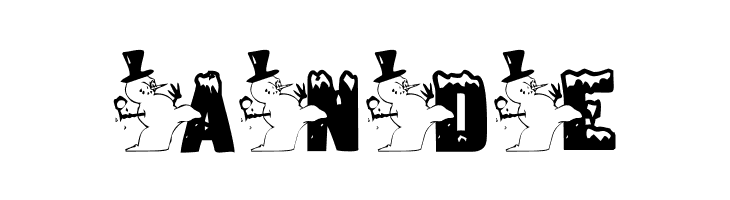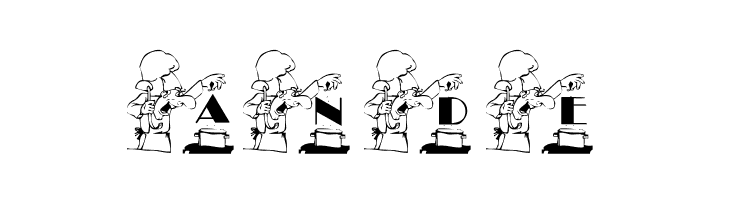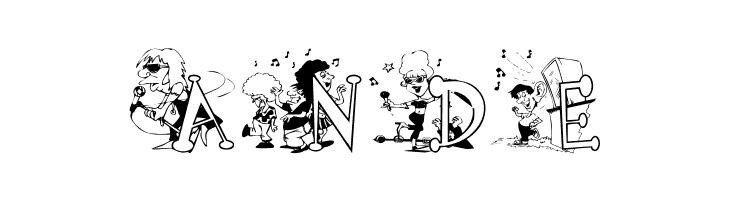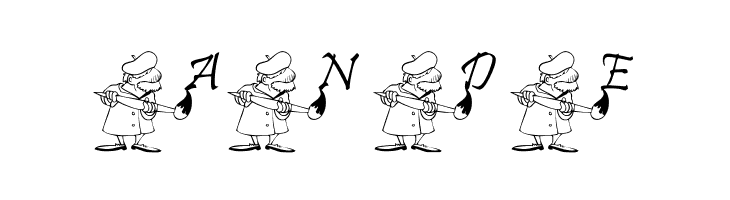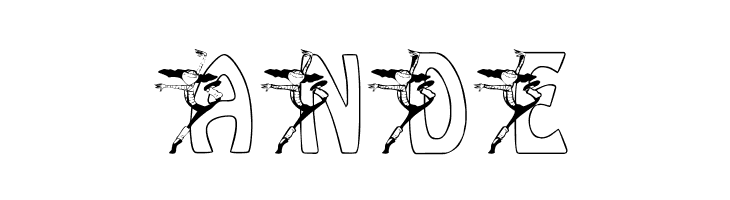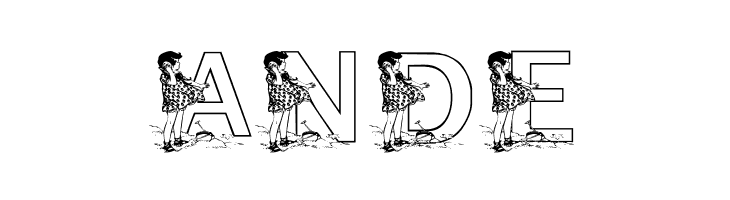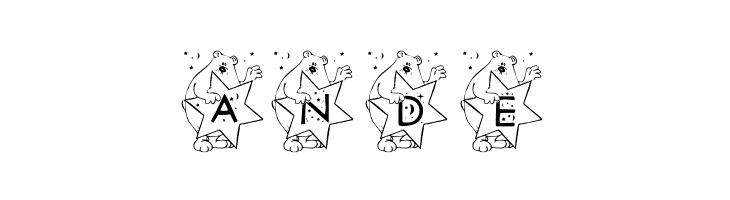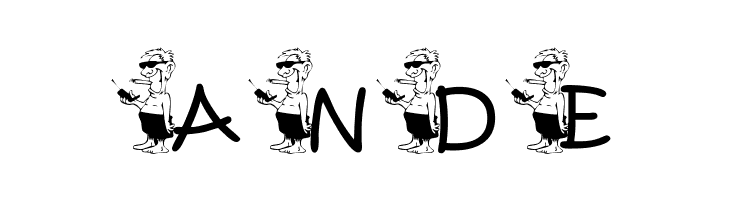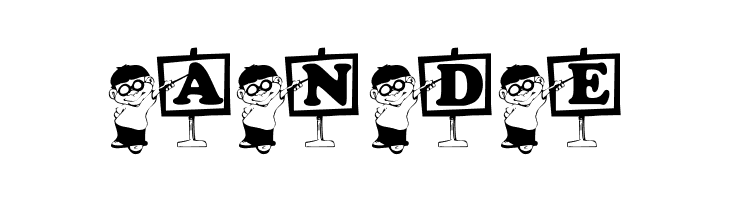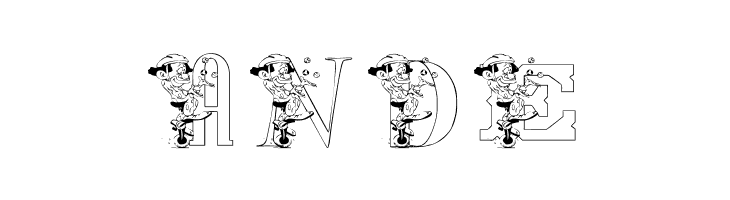
A whimsical, cow-themed decorative font with bold, outlined characters.
A whimsical, illustrated font inspired by nursery rhymes, perfect for decorative uses.
A decorative font with NYC-themed illustrations integrated into each letter.
A whimsical font with owl-decorated uppercase letters and clean lowercase outlines.
A whimsical font with letters inside teddy bear designs, perfect for playful projects.
A playful, hand-drawn font with letters in doodled squares and pencil accents.
A playful font with each letter paired with a dog illustration, perfect for fun and creative projects.
A decorative font with characters enclosed in vintage-style frames.
A whimsical, decorative font with letters featuring umbrellas and characters.
A Halloween-themed decorative font with skulls and bats integrated into the characters.
A festive serif font with integrated snowmen, perfect for holiday designs.
A playful font with teddy bear illustrations integrated into each character.
A whimsical, turtle-themed decorative font with bold, serif outlines.
A bold, patriotic font with Uncle Sam and American flag motifs.
A playful, decorative font with letters hanging on a clothesline, ideal for creative projects.
A decorative font with snowman-themed letters, perfect for festive projects.
A whimsical decorative font with angel illustrations atop each character.
A playful, cartoon-style font with letters held by whimsical characters.
A whimsical font with cartoon duck illustrations and ornate lowercase letters.
A playful font with letters inside cartoon pig characters, offering a whimsical and fun style.
A whimsical and decorative font with cartoon figures and ornate frames.
A decorative font combining letters with ballet dancer illustrations.
A decorative font with beach-themed illustrations within each letter.
A whimsical font with characters enclosed in cartoonish bear shapes, perfect for playful designs.
A playful font with cartoon characters integrated into each letter.
A playful font with clown-themed characters, perfect for fun and lively designs.
A playful font with dancing figures integrated into each letter.
A decorative font with diamond motifs, offering a luxurious and elegant style.
A whimsical font with fairy characters adorning each letter, combining outlined uppercase with bold lowercase styles.
A whimsical font with crowned frog illustrations integrated into outlined letters.
A playful giraffe-themed font with whimsical character designs.
An ornate, decorative font with floral embellishments on each character.